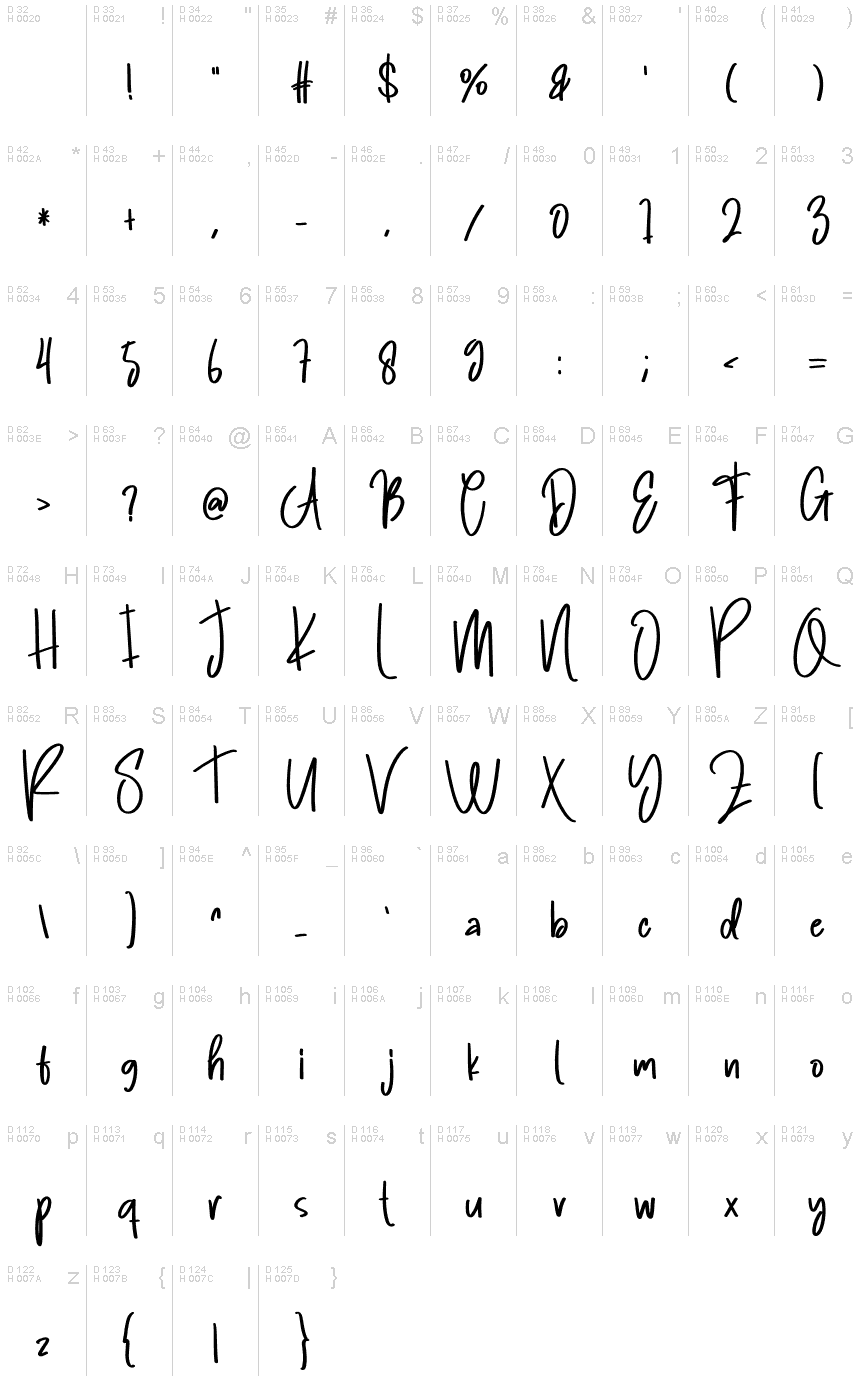
With Story
With Story, designed by scratchones, is a captivating handwritten font that adds a touch of personality to any project. Its semi-light weight gives it a delicate and graceful appearance, while the semi-condensed width allows for easy readability. This versatile font is perfect for creating beautiful wedding invitations, heartfelt greeting cards, or even unique logos for boutique businesses. With Story will add an element of charm and elegance to your design projects, making them stand out from the crowd. Let your creativity flow with this enchanting semi-light handwritten font.
The latest style letters are perfect for wall displays, wedding invitations, social media post logos, advertisements, product packaging, product designs, labels, photography, watermarks, invitations, stationery, and any project that requires taste handwriting.